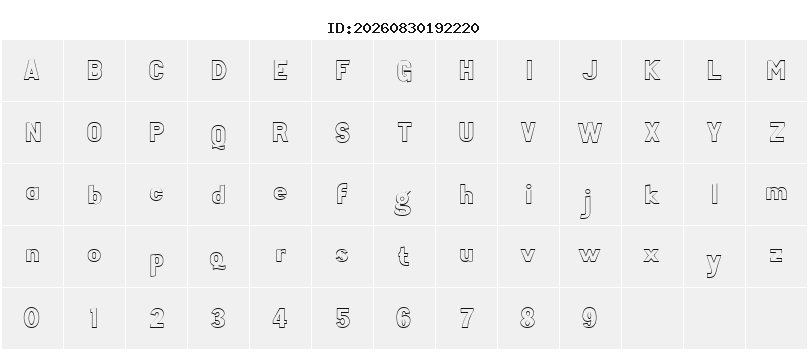
Tenko Preview
• Font Name: Tenko
• Full Font Name: TenkoPleuelstange
• PostScript Name: TenkoPleuelstange
About Tenko.ttf
Tenko.ttf is a modern, elegant sans-serif font designed for ultimate readability and visual harmony. Perfect for branding, headlines, web design, and print materials.